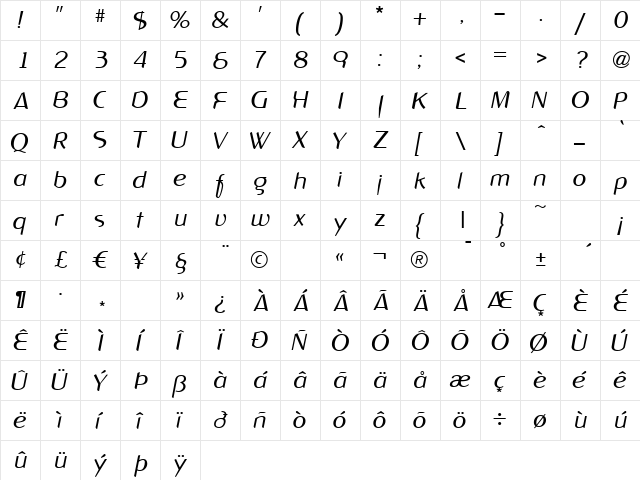
Xyperformulaic1.0 R Regular Font Preview
Xyperformulaic1.0 R Regular
Design Context for Xyperformulaic1.0 R Typeface
Xyperformulaic1.0 R takes a measured approach to typography — its balanced proportions and neutral character make it a reliable workhorse for both digital and print work.